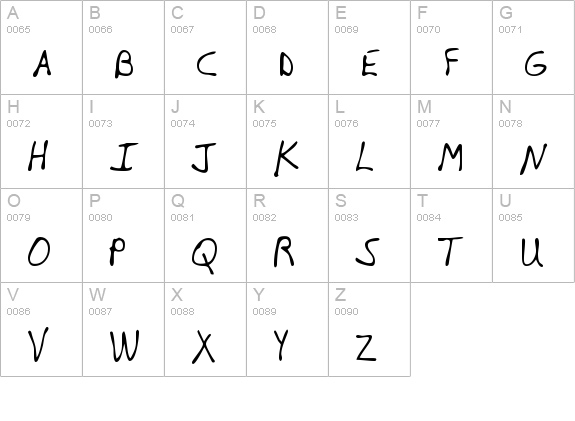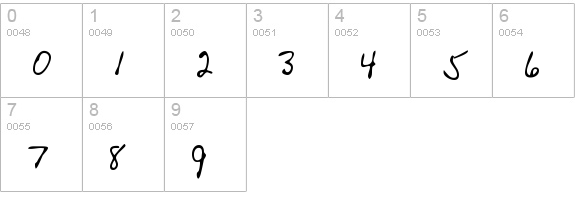
HershelsHand Regular Font Details
HershelsHand Regular is the standard, neutral variant in the HershelsHand typeface family \xE2\x80\x94 well suited to general body text, paragraphs, and standard typographic work.
HershelsHand Regular font is a charming and whimsical typeface that exudes warmth and friendliness. With its hand-drawn style and unique character shapes, this font is perfect for adding a personal touch to your designs. Whether you're creating invitations, greeting cards, or branding materials, HershelsHand Regular will surely stand out. The best part is that HershelsHand Regular font is completely free to download at FontsMarket.com. This means you can easily access this delightful font and use it in your projects without any cost. Don't miss out on this wonderful opportunity to enhance your designs with HershelsHand Regular font - download it today and let your creativity shine!